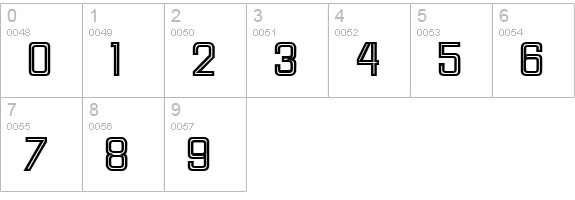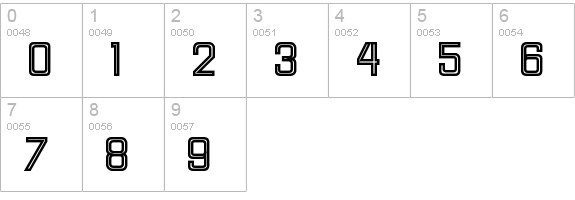
HallandaleSquareInline JL Font Details
HallandaleSquareInline JL is a stunning font that effortlessly combines modernity and elegance. With its sleek lines and sharp edges, this font is perfect for adding a touch of sophistication to any design project. Its unique square-shaped inline style sets it apart from other fonts, making it a standout choice for logos, headlines, and branding materials. But what truly sets HallandaleSquareInline JL apart is the fact that it is available for free! Yes, you read that right. This incredible font can be downloaded at no cost from FontsMarket.com. Whether you're a professional designer or a casual enthusiast, you can now easily access this font without breaking the bank. With its wide range of characters and versatile styling options, HallandaleSquareInline JL offers endless possibilities for your creative endeavors. Its clean and crisp design ensures legibility, even at smaller sizes, making it suitable for both print and digital projects. This font is perfect for creating eye-catching posters, sleek website headers, stylish invitations, and much more. Its bold and contemporary aesthetic will grab attention and leave a lasting impression on your audience. Don't miss out on this incredible opportunity to elevate your designs with HallandaleSquareInline JL. Download it for free today at FontsMarket.com and watch your projects come to life with a touch of modern sophistication.